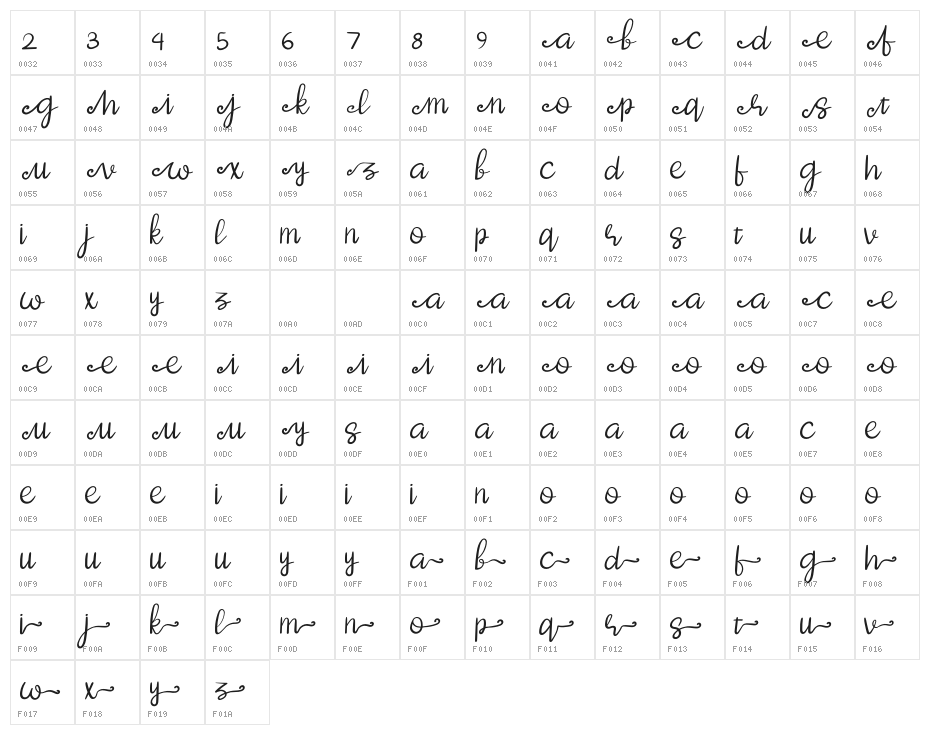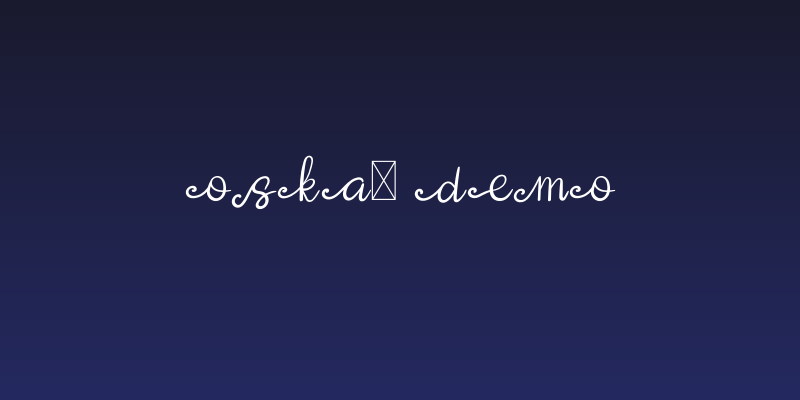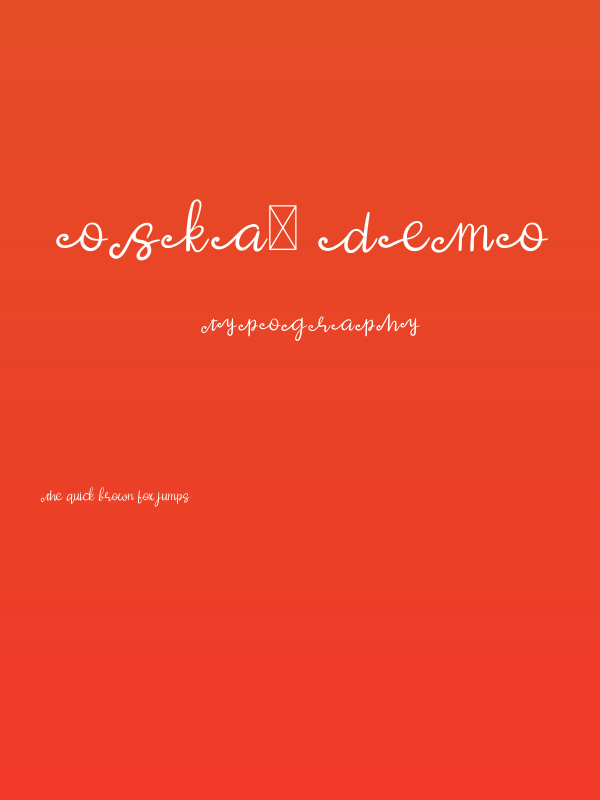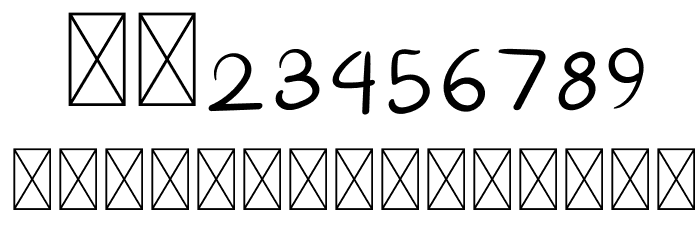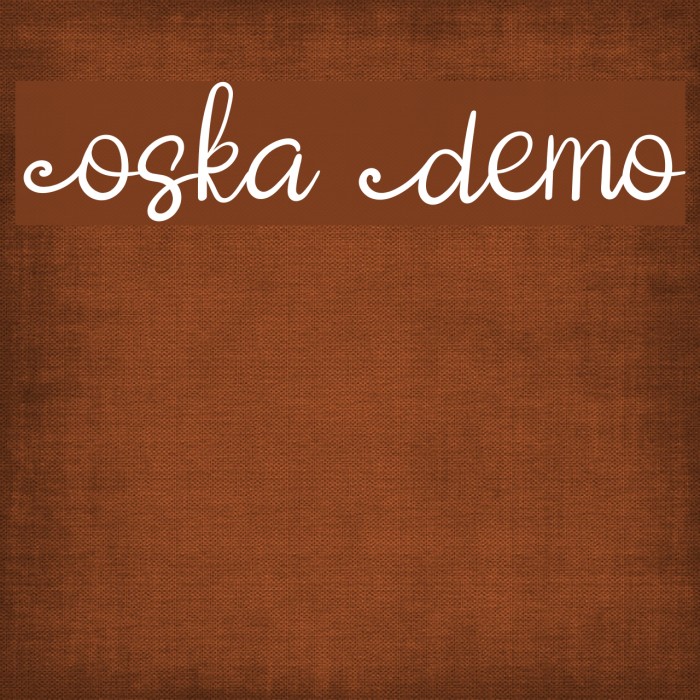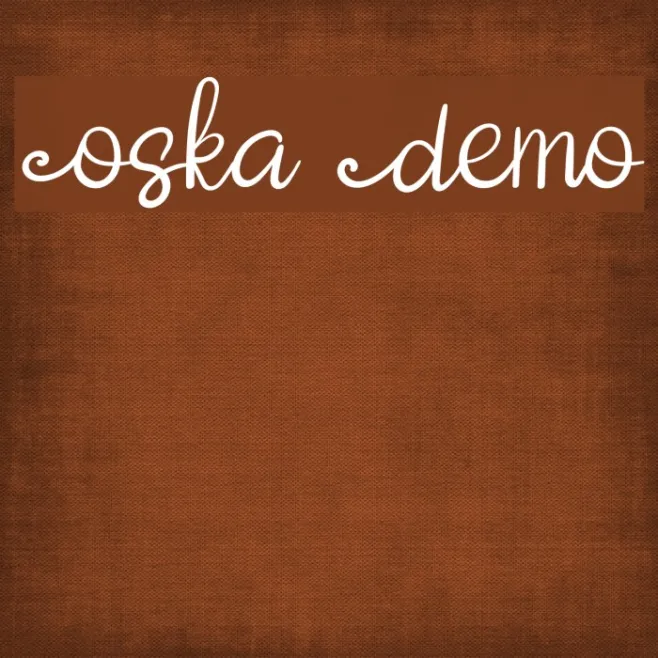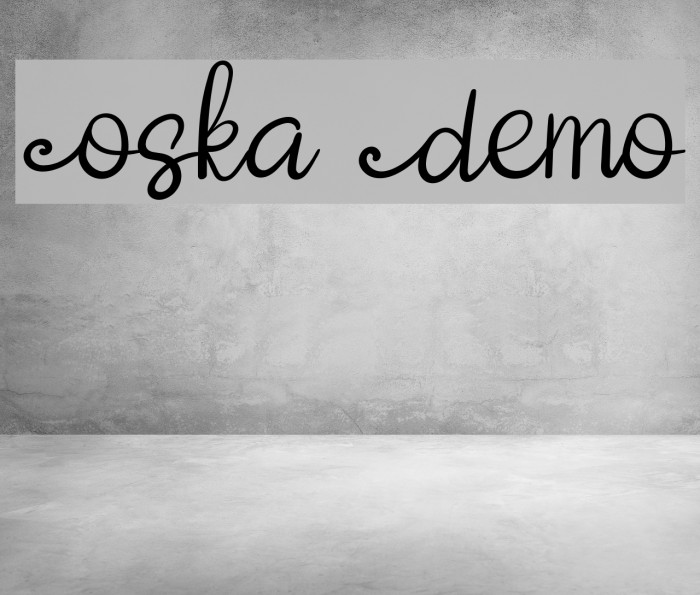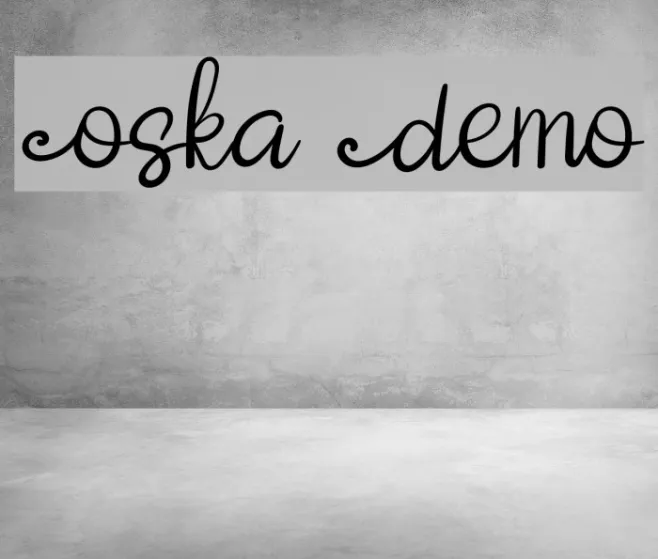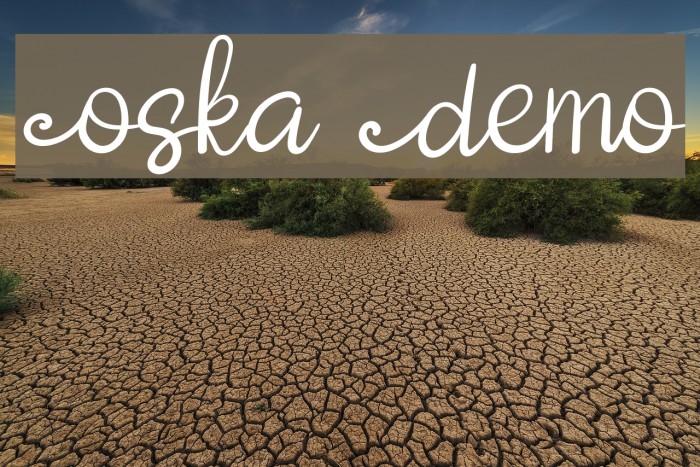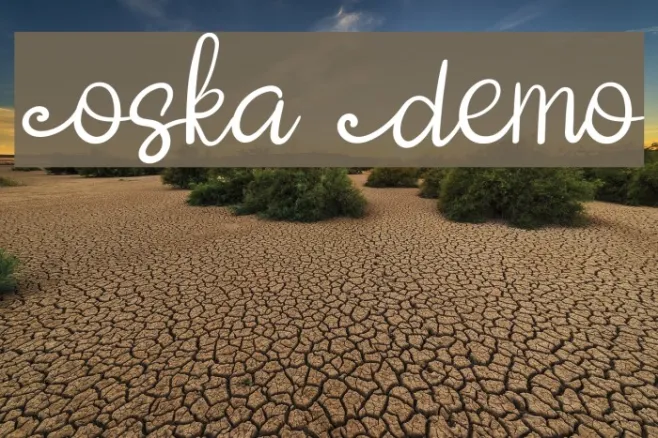
Oska- Demo Font
Oska- Demo Description
This font features a playful and modern handwritten style, characterized by its smooth, flowing curves and slightly irregular letterforms. The lowercase letters have a whimsical quality, with loops and swirls that add a touch of elegance and personality. The uppercase letters maintain a consistent height and width, providing a balanced and cohesive appearance. The numerals are distinct and easy to read, complementing the overall style of the font. This font is versatile, suitable for a variety of design projects that require a personal and approachable touch.